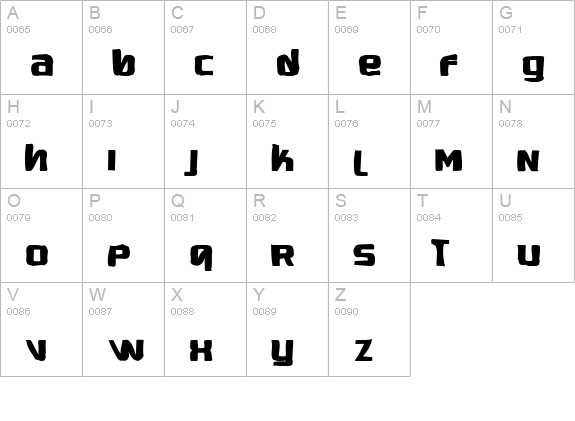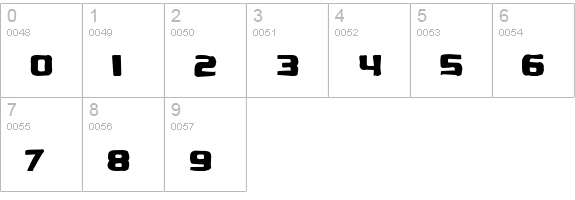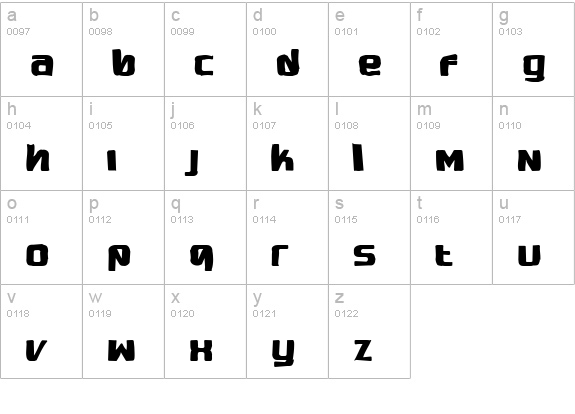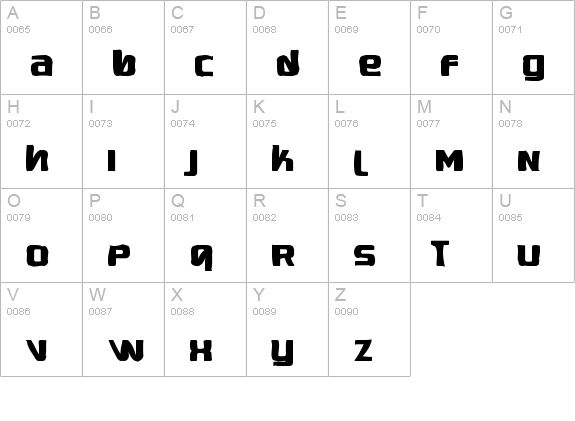
Quadaptor Ink Font Details
Introducing Quadaptor Ink font - a contemporary and versatile typeface that is sure to make a bold statement in any design project. This unique font features intricate details and sharp edges, giving it a modern and edgy look. Quadaptor Ink is perfect for a wide range of design applications, from branding and packaging to posters and social media graphics. Its sleek and stylish appearance will instantly elevate your work and grab the attention of viewers. The best part? Quadaptor Ink is available for free download at FontsMarket.com, making it easily accessible for designers and creatives looking to add a touch of sophistication to their projects. Don't miss out on this must-have font - download Quadaptor Ink today and take your designs to the next level!